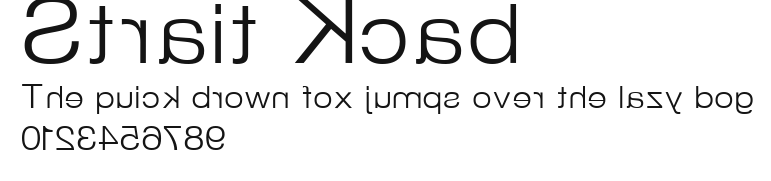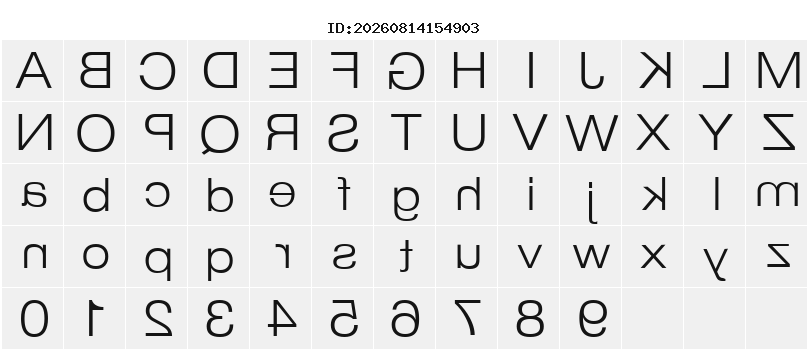
• Font Name: Strait Kcab
About Strait Kcab.ttf
Strait Kcab.ttf is a modern, elegant sans-serif font designed for ultimate readability and visual harmony. Perfect for branding, headlines, web design, and print materials.